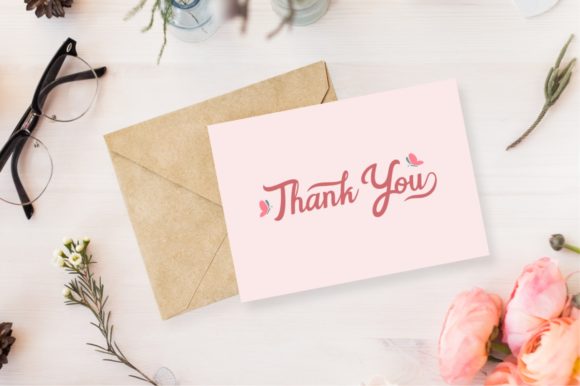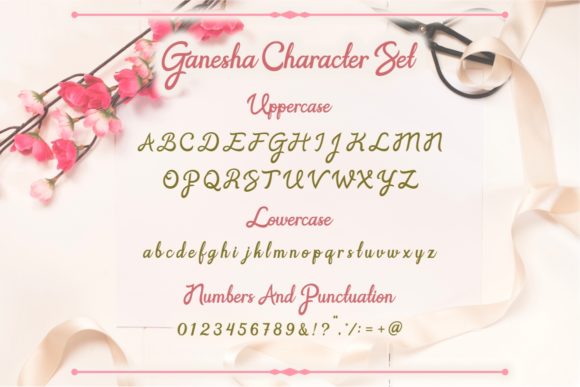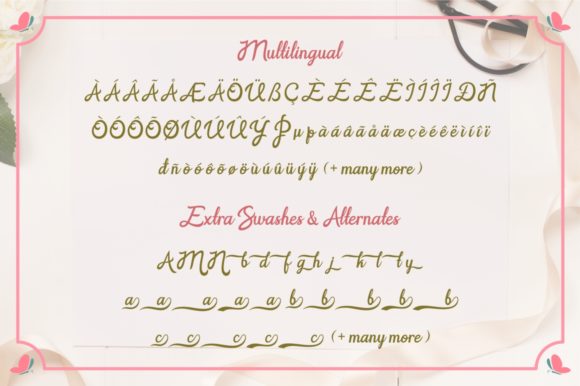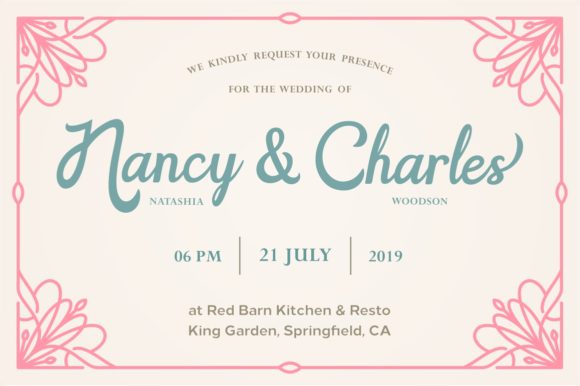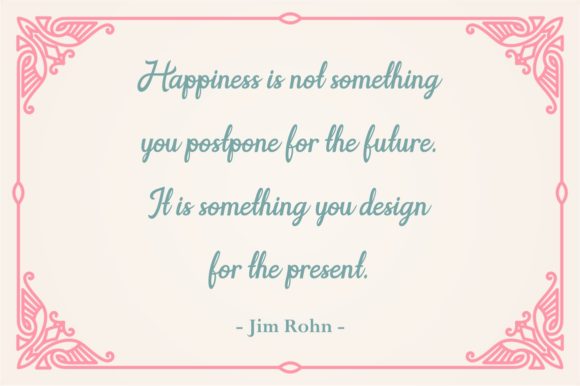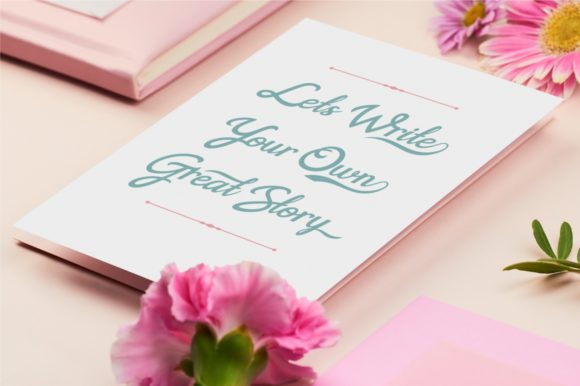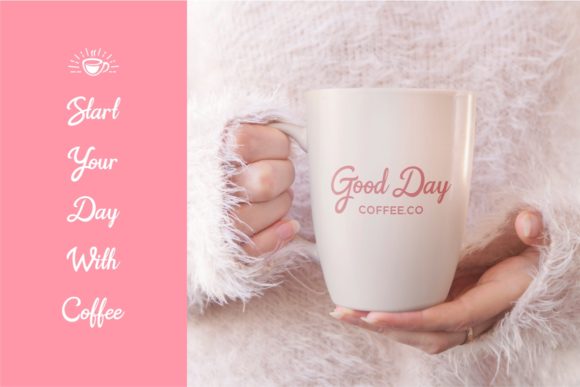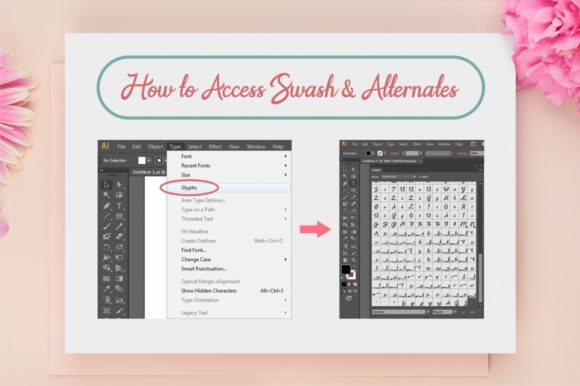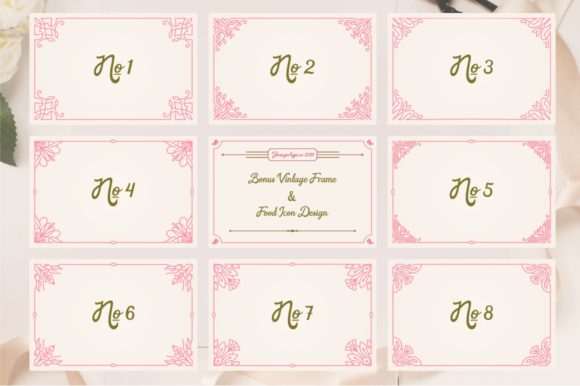
Ganesha Font
About Ganesha Font
Ganesha is a beautiful script font with unique curves and a bold feel. The beautiful decorative flower frames perfectly enhance the luxurious character of the font.